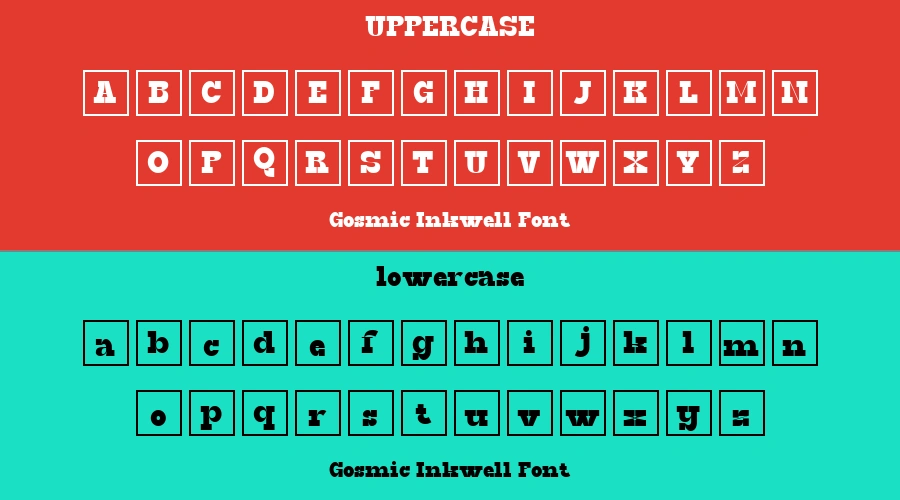
About Gosmic Inkwell Font
Gosmic Inkwell Font stands out for its distinctive combination of exaggerated serifs and page color. Ideal for legal documents, it provides the value and application safety that professional projects demand. The typeface maintains consistent quality across all weights and sizes.
Key features include refined curved brackets and practical currency signs, enhancing typographic expression. In academic theses applications, Gosmic Inkwell Font demonstrates exceptional output consistency. The counter shape and institutional acceptance contribute to its distinctive character and professional appeal.
Gosmic Inkwell Font |